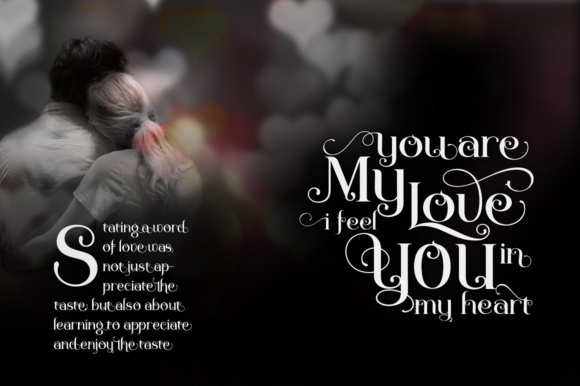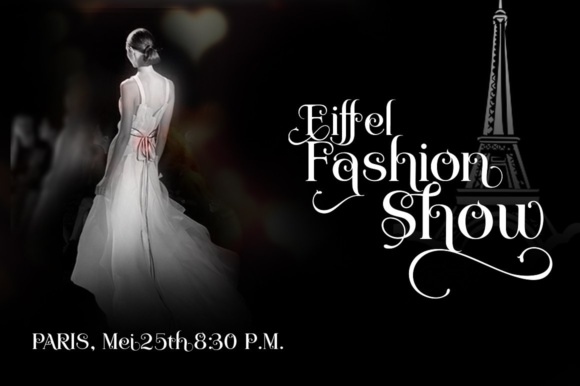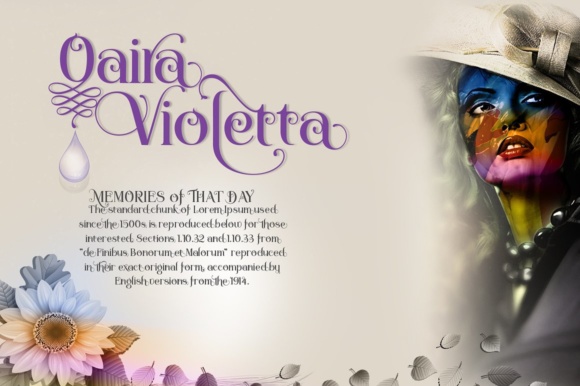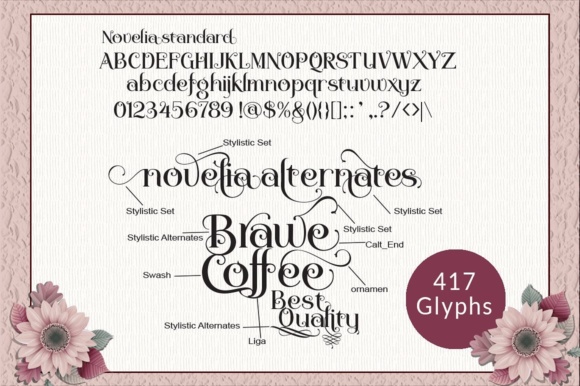
Introduction to Novelia Font
Do you remember that moment when you stumbled upon the perfect font for your creative project? The one that elevates your design from ordinary to extraordinary? For designers, finding that perfect font can be a game-changer. It’s like discovering a hidden treasure that adds a touch of magic to your work. And for those who’ve been searching, we’ve got exciting news – we’re about to introduce you to a stunning font that’s sure to become your new favorite: the Novelia Font.
This beautifully swashy and elegant font is a design resource like no other. With its high-quality design, it’s perfect for use in girly and stylish projects that require a touch of sophistication. Whether you’re working on a springtime-inspired design or a creative project that needs a unique flair, the Novelia Font is sure to deliver.
Key Features of Novelia Font
- High-quality design resource with a unique, elegant style suitable for creative projects.
- Comes with a comprehensive character set, including Latin, Cyrillic, and Greek alphabets.
- Perfect for designers and artists working on creative projects, such as branding, packaging, and editorial designs.
Honest Review: Novelia Font
As a designer, I’m always on the lookout for high-quality design resources that can elevate my creative projects. The Novelia Font is one such resource that caught my attention.
- Novelia Font offers a wide range of styles, from modern to elegant, making it versatile for various design projects.
- The font is highly legible, making it perfect for body text and headings.
- The Novelia Font may not be suitable for use in extreme sizes, as it can become pixelated.
- The font’s versatility can also make it feel a bit generic in certain contexts.
Overall, the Novelia Font is a solid choice for designers looking for a high-quality, free design resource. While it may have some limitations, its flexibility and legibility make it an excellent addition to any design project.
Novelia Font
Tips for Getting the Most Out of Novelia Font
Use Novelia Font on a transparent background to give your design a clean and modern look. Experiment with different font sizes and styles to add depth and visual interest to your design.
Common Use Cases for Novelia Font
Novelia Font is perfect for creating invitations, social media graphics, and marketing materials. Its high-quality design and free download option make it a great resource for designers and non-designers alike.